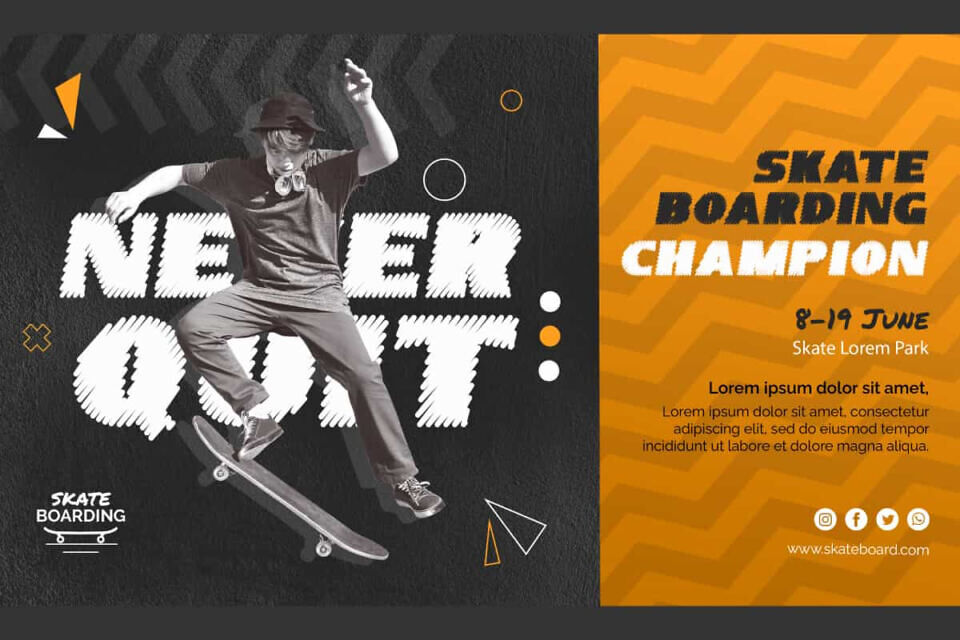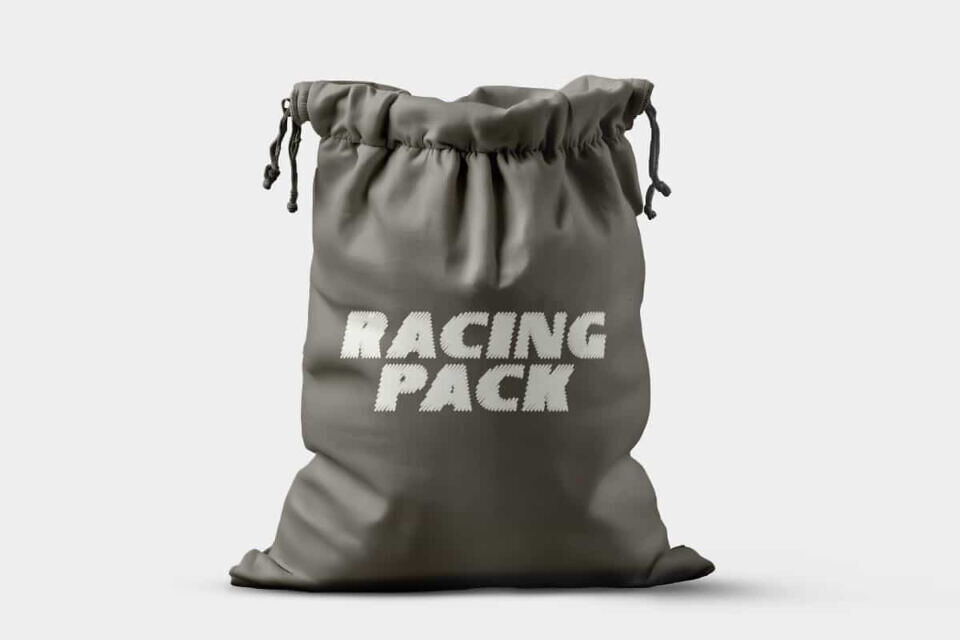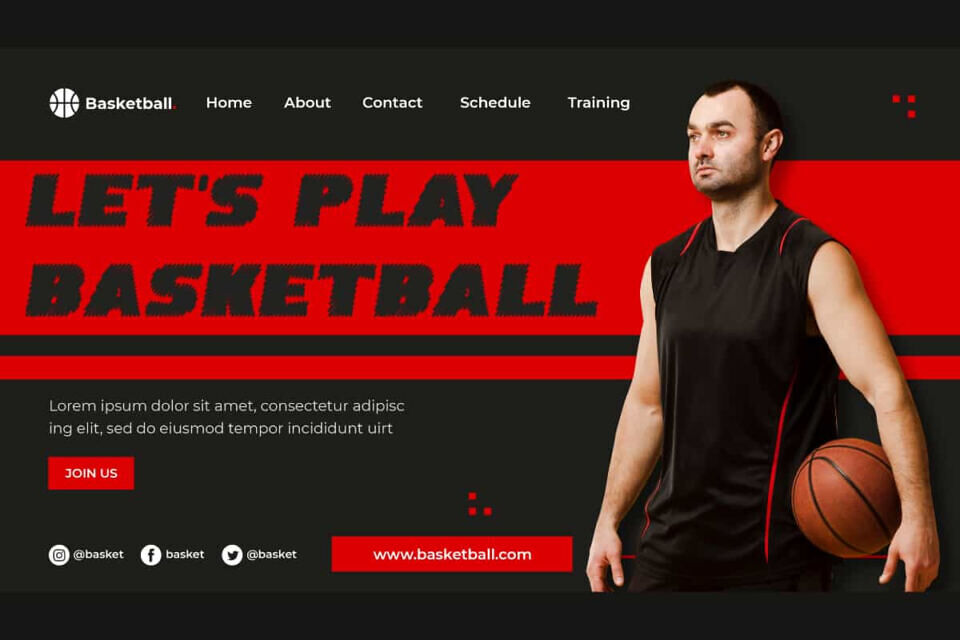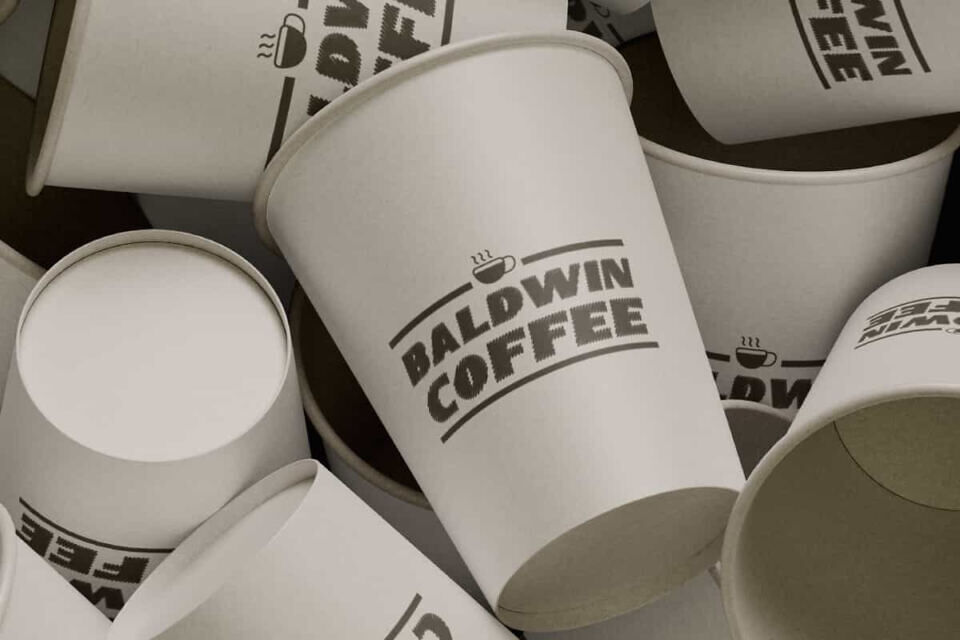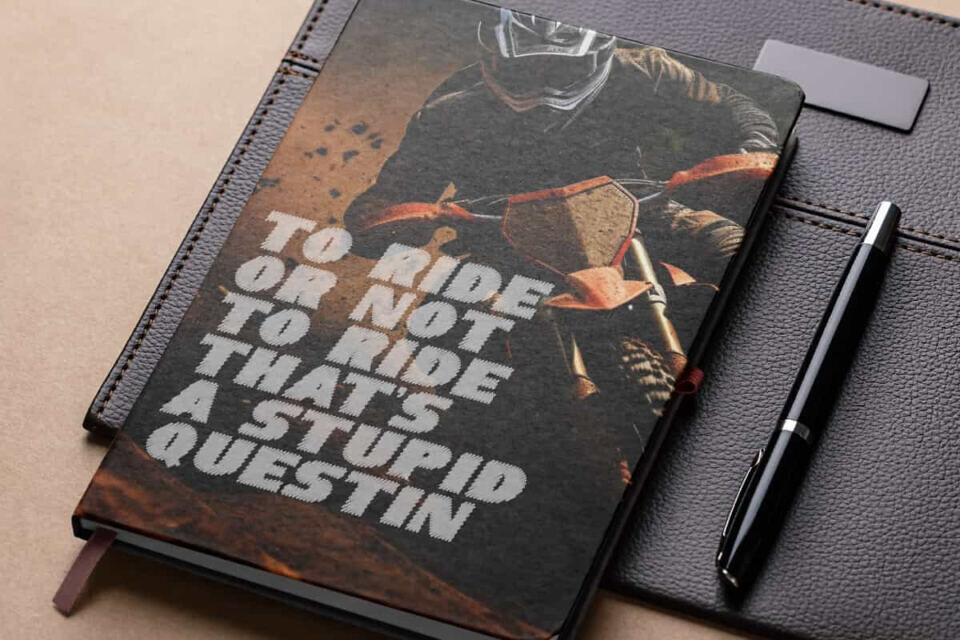
Racing Pack Font is a sketched ornament decorative fun racing font with a unique and bold concept to make your design different from the others!. This font’s characters look like they were made with thin marker strokes, resulting in bold letters. It will be great for custom design, poster, label, signage, stationery, product packaging, quotes, brand image, advertisement, invitation, marketing material, website page, and more!
Racing Pack Font includes a full set of ALL CAPS for Uppercase and Lowercase Letters, Numerals, and large range of Punctuation. This cool font will be suitable for various industries, such as sports, automotive, fashion, game, barber shop, cafe, event or festival, photography, printing, publishing, etc.